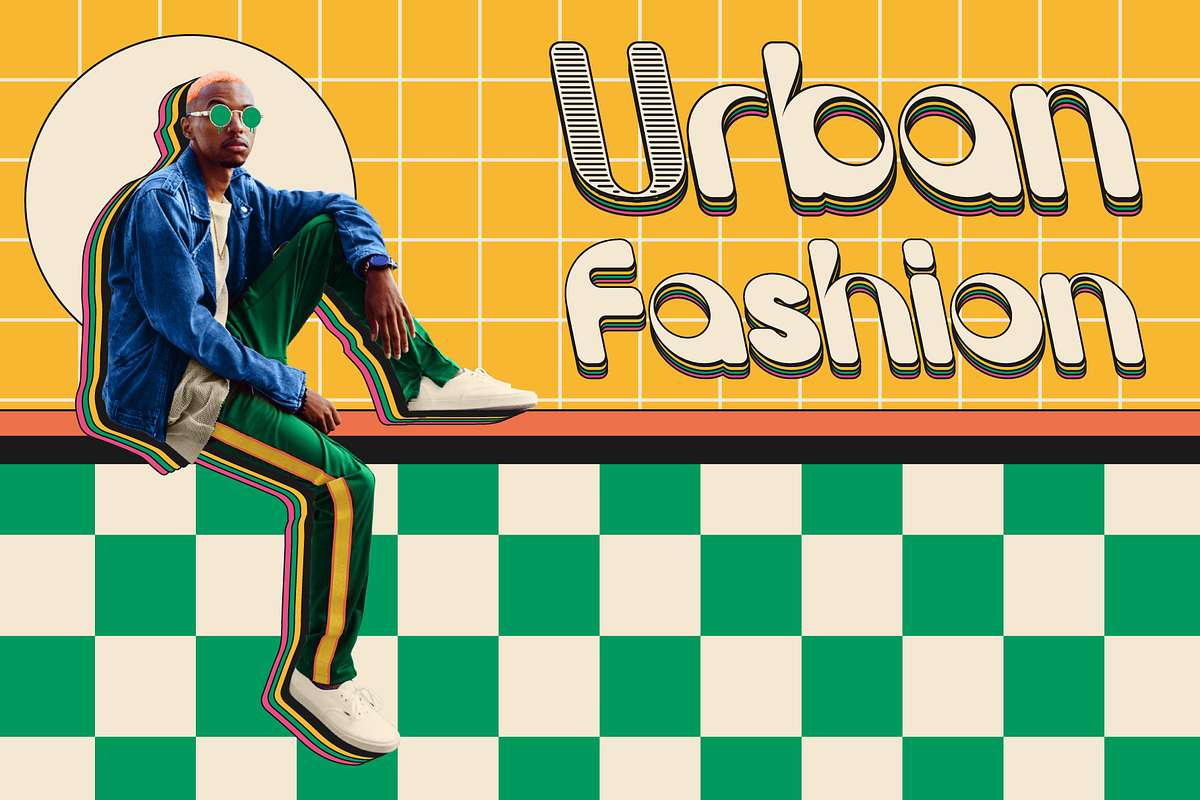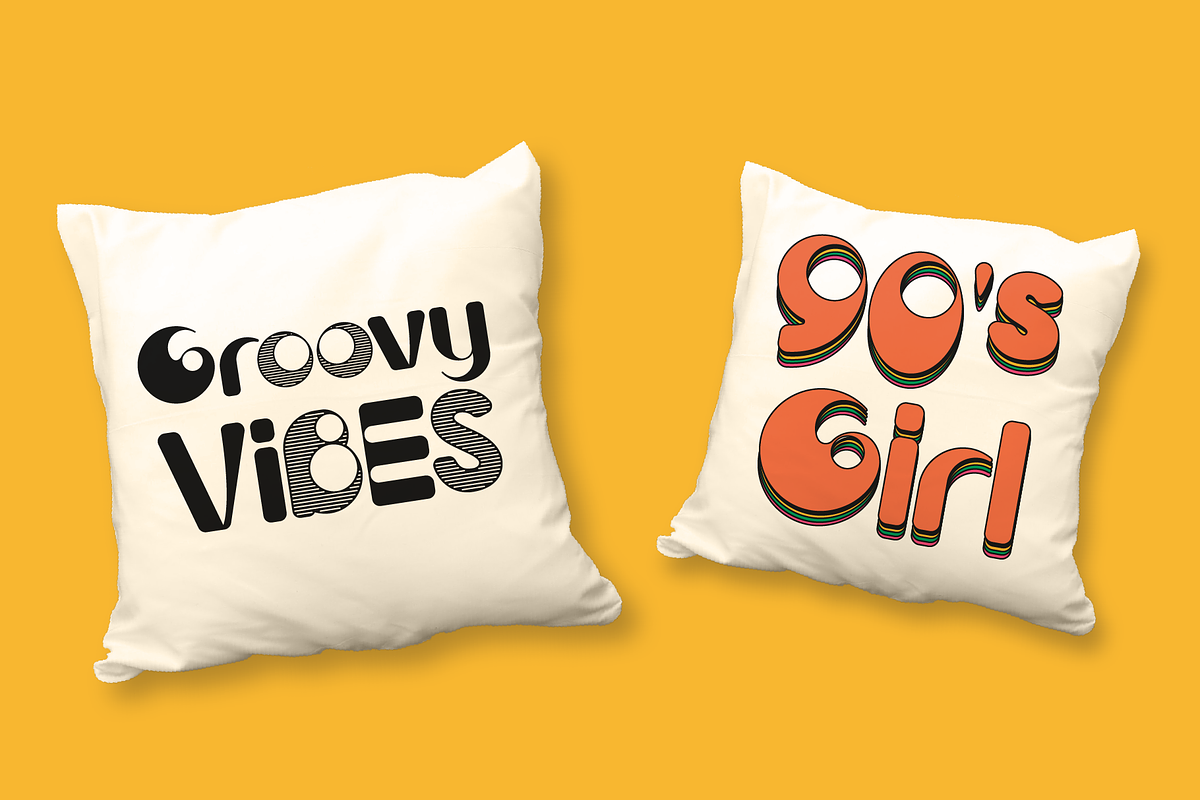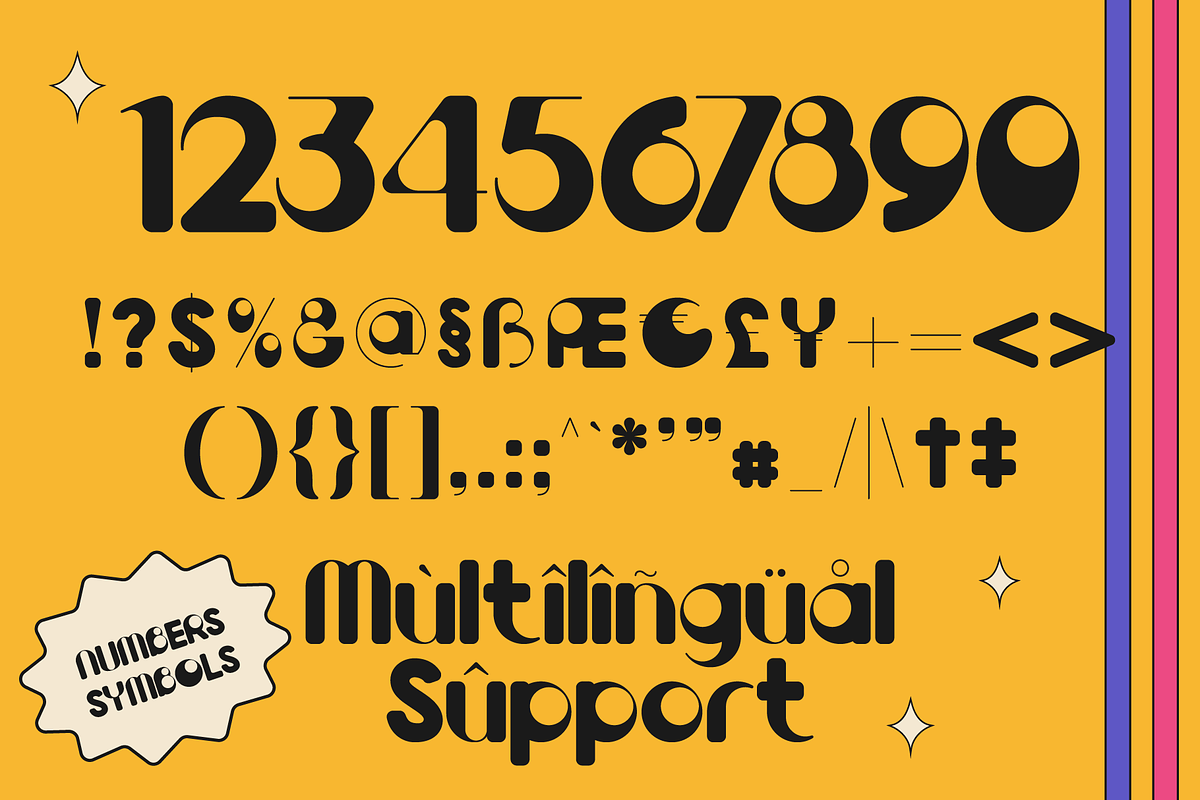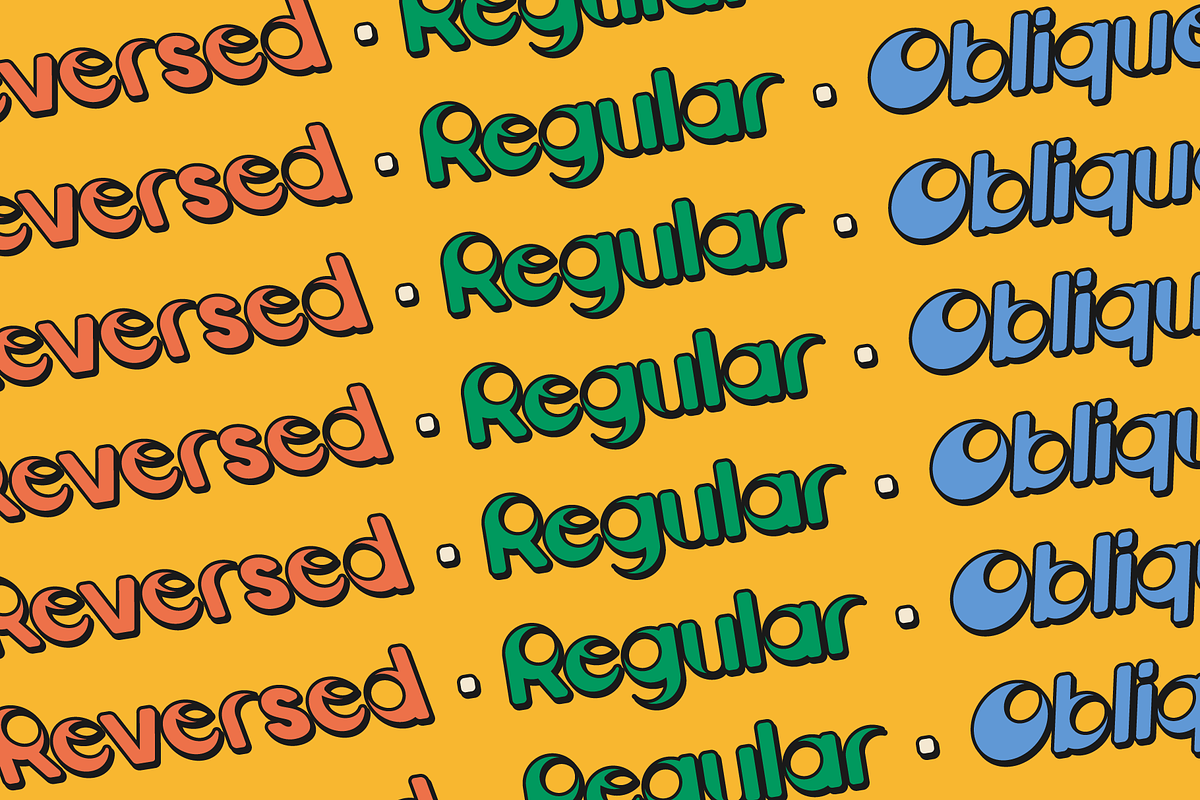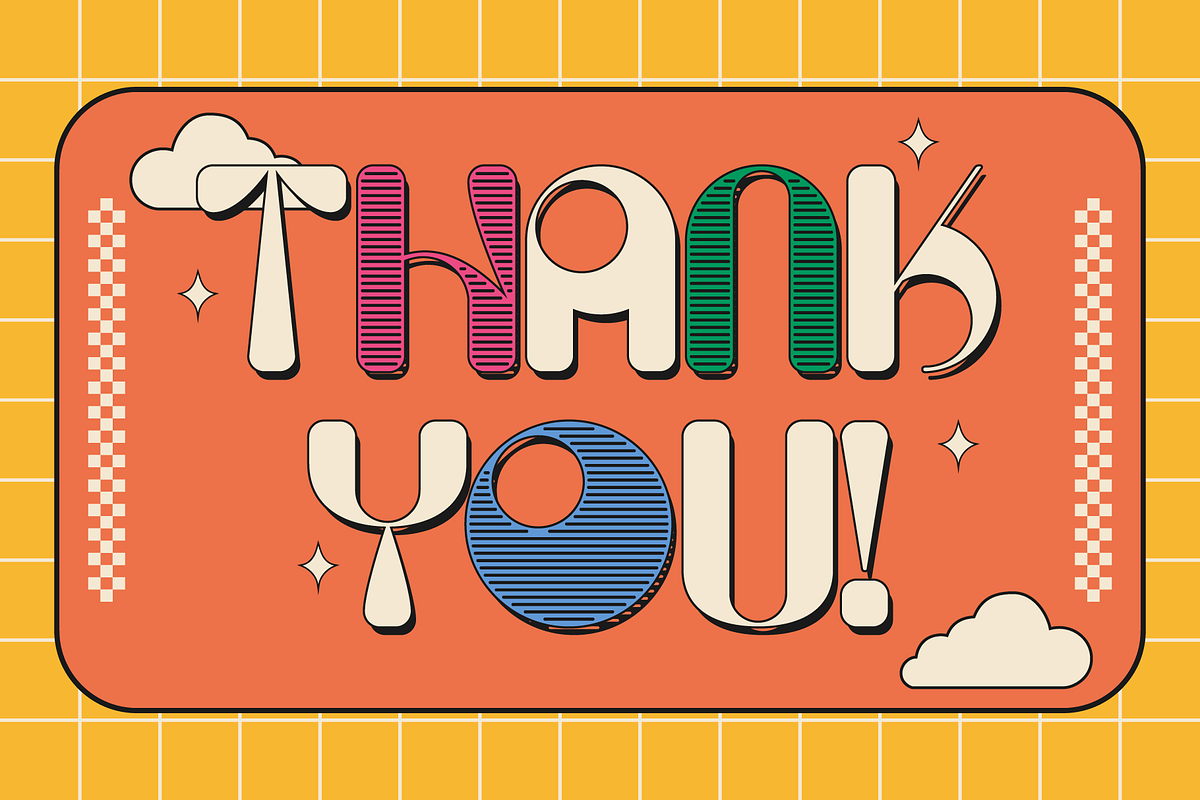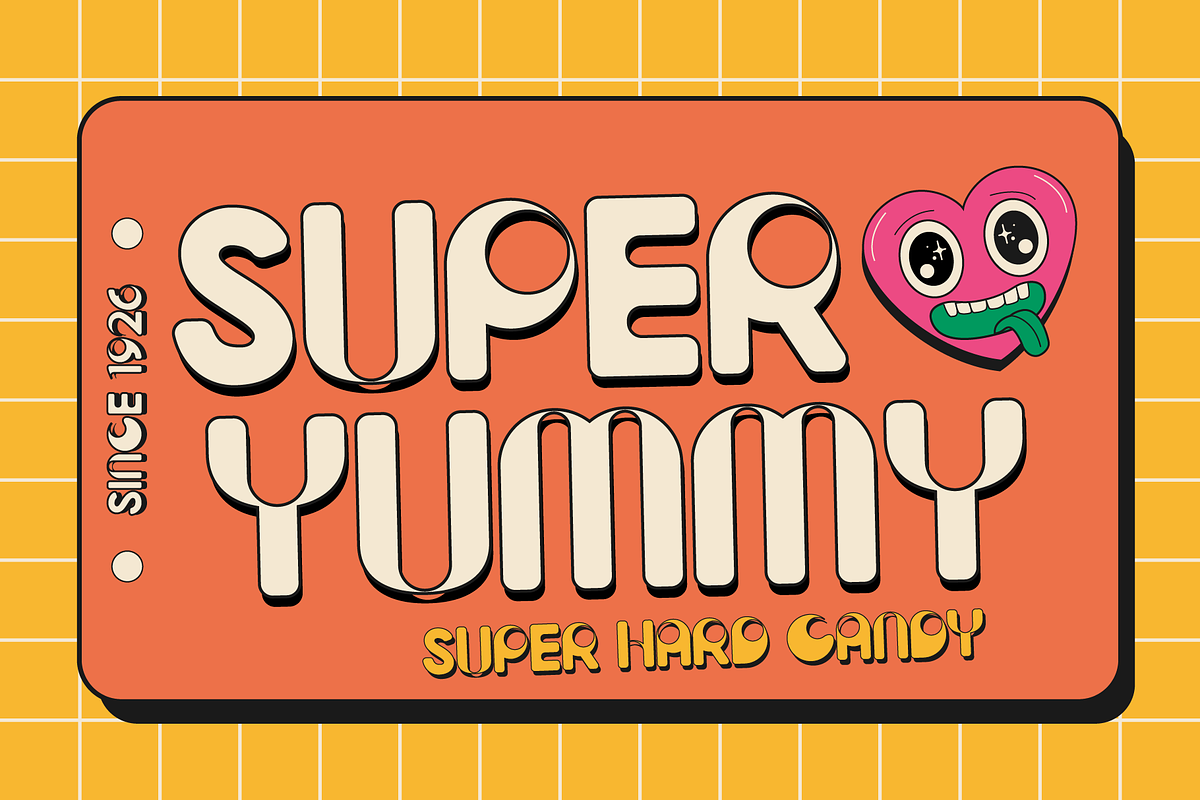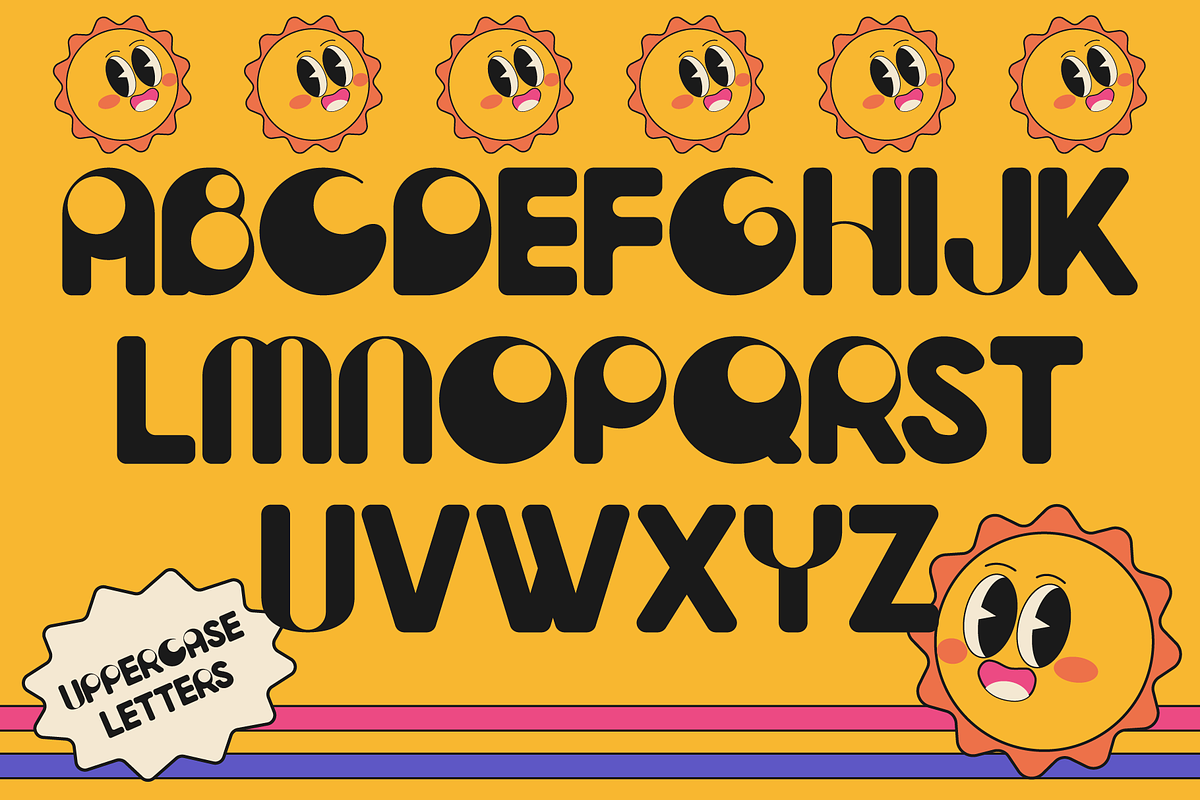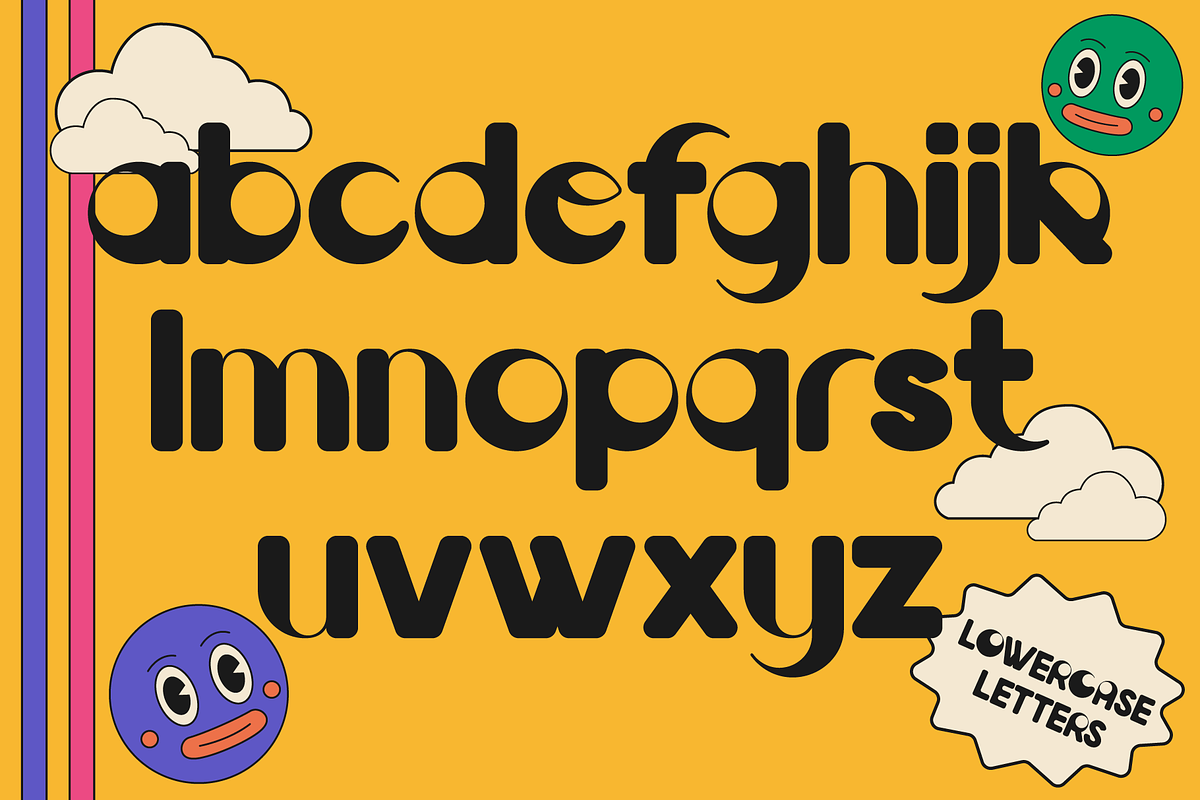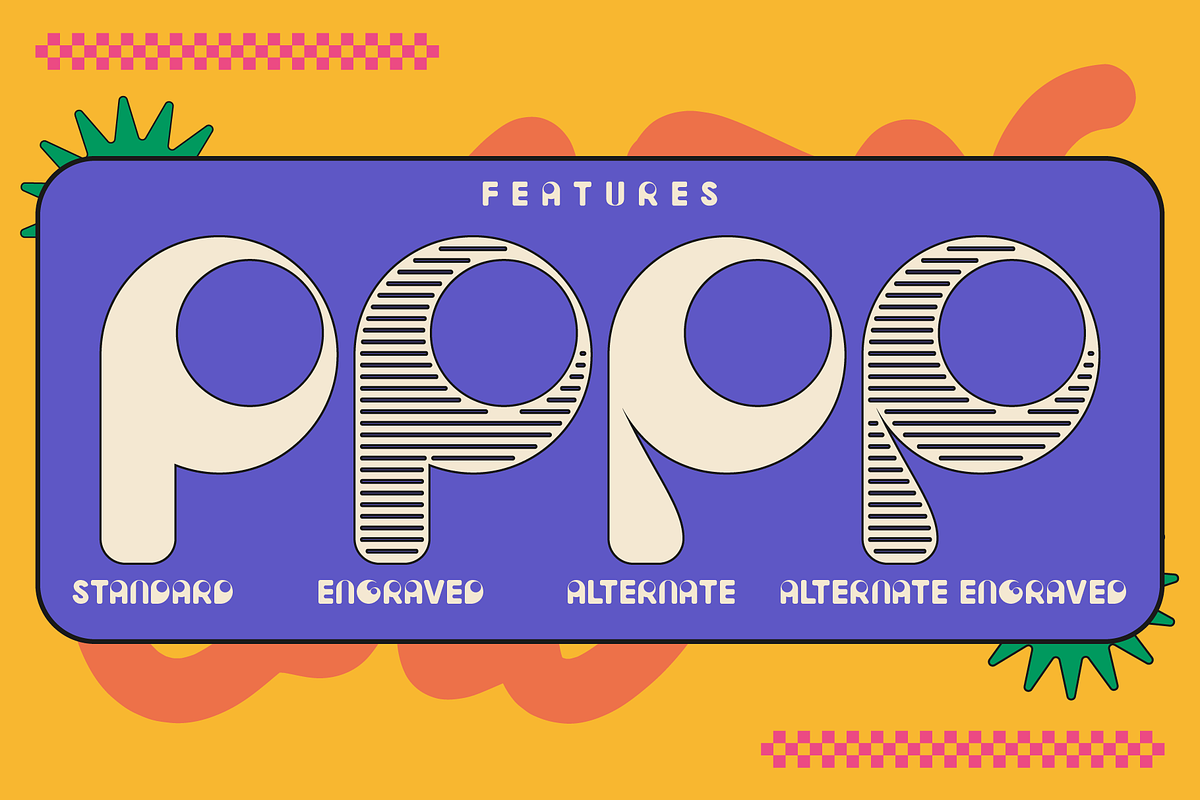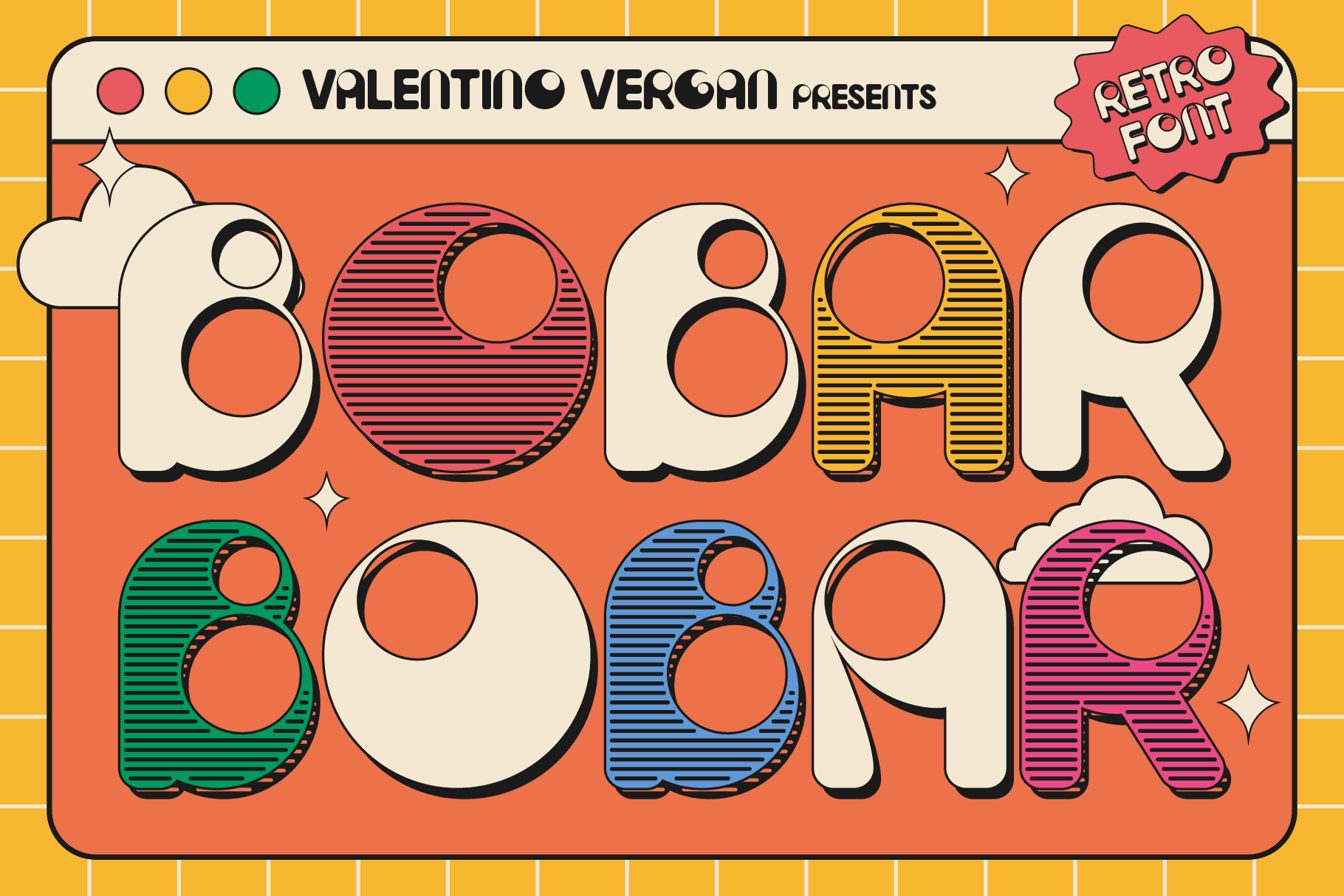
Bobar - Bold Variable Retro Font
Bobar is a retro inspired variable font. Bobar is very eye catching, its groovy design and bold chunky shape makes it great for retro projects. Bobar comes with standalone fonts and a variable version, the variable version allows you to manually adjust the slant.
Bobar is designed with creative alternate and engraved characters, this makes it perfect for a wide range of project such as: branding, magazines, logos, product packaging, advertisements and much more.